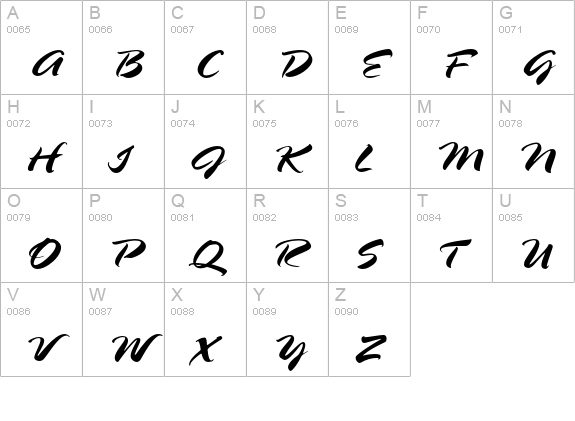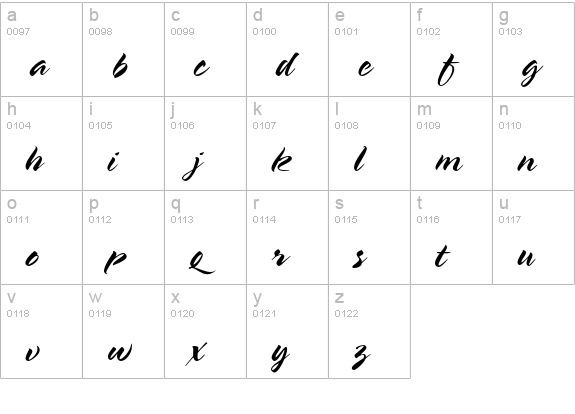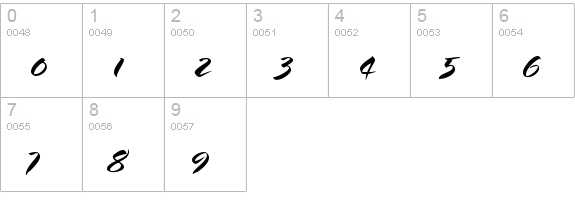
Spring LP font is a visually stunning typeface that captures the essence of the spring season with its delicate curves and graceful letterforms. This font exudes a sense of freshness and vitality, making it the perfect choice for any design project that aims to evoke a sense of renewal and rejuvenation. The Spring LP font features a unique blend of modern and traditional elements, resulting in a harmonious balance between elegance and readability. Its clean lines and smooth contours ensure that each letter is effortlessly legible, while its subtle embellishments add a touch of sophistication. One of the most appealing aspects of the Spring LP font is that it is freely available to download at FontsMarket.com. This means that designers and typographers can easily access this beautiful typeface without having to worry about any licensing restrictions or fees. It is a font that truly celebrates the spirit of creativity and accessibility. Whether you are working on a branding project, a magazine layout, or a website design, the Spring LP font is sure to elevate your work to new heights. Its versatility allows it to be used in a wide range of applications, from headlines and titles to body text and captions. With its timeless elegance and modern flair, this font is bound to make a lasting impression on any audience. Download the Spring LP font today from FontsMarket.com and let its free-spirited charm breathe new life into your designs. Embrace the beauty of spring and let this font be your creative companion as you embark on your next design adventure.